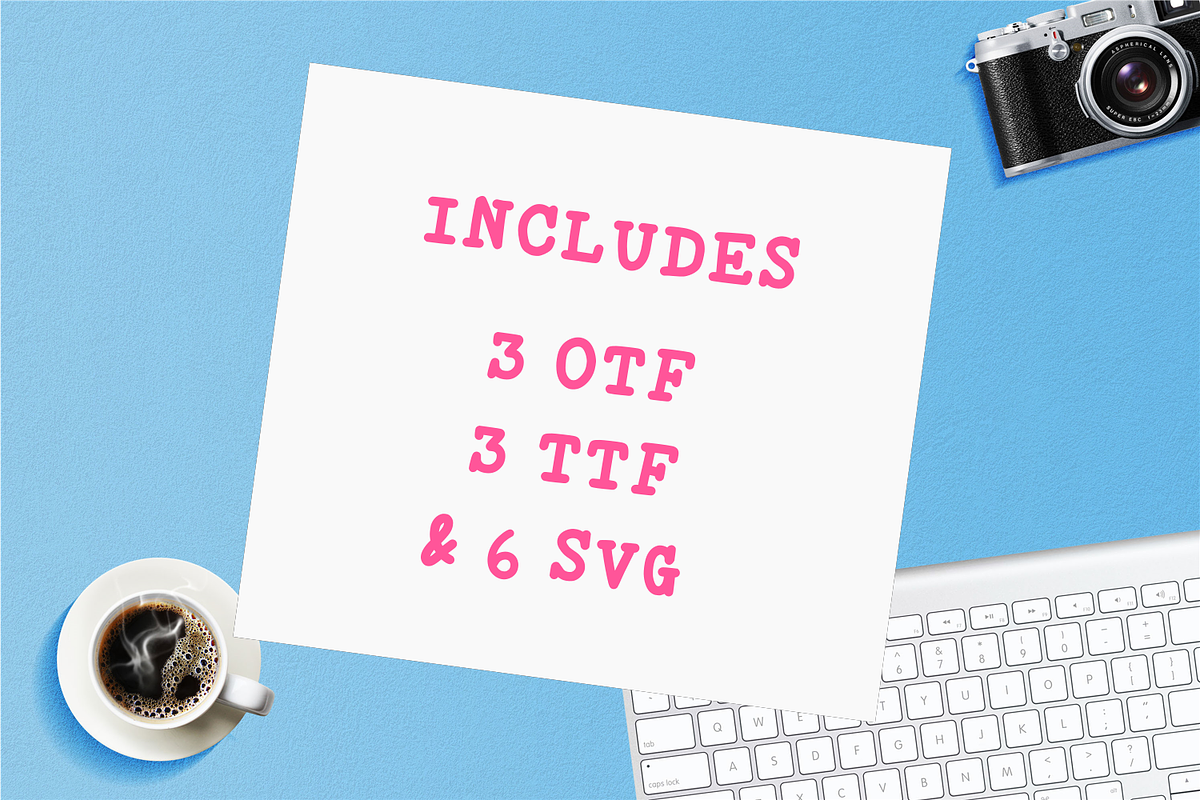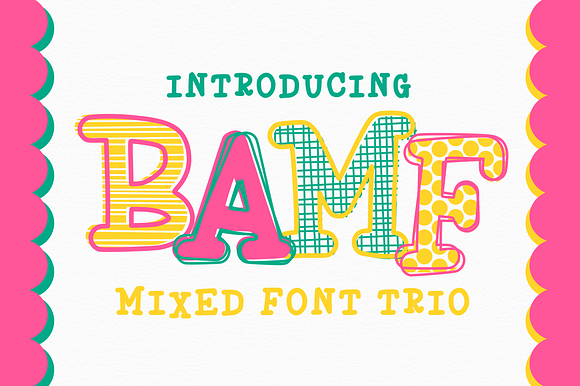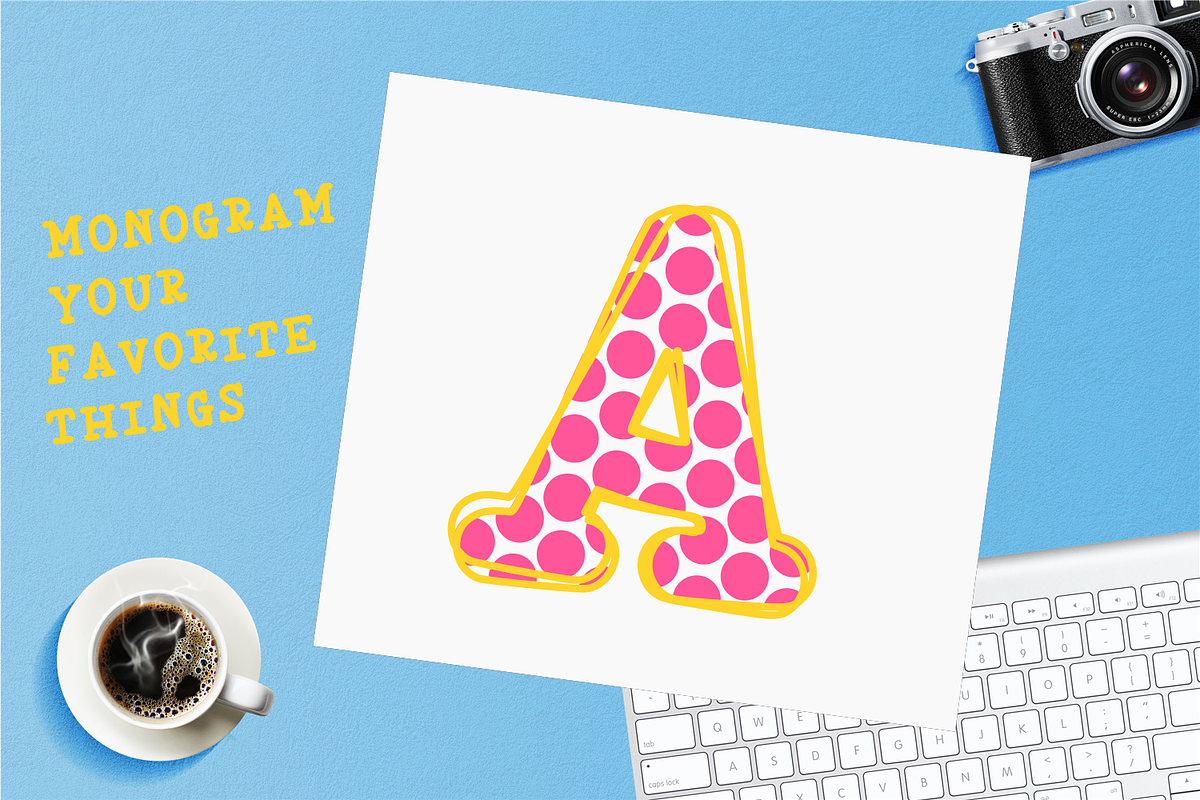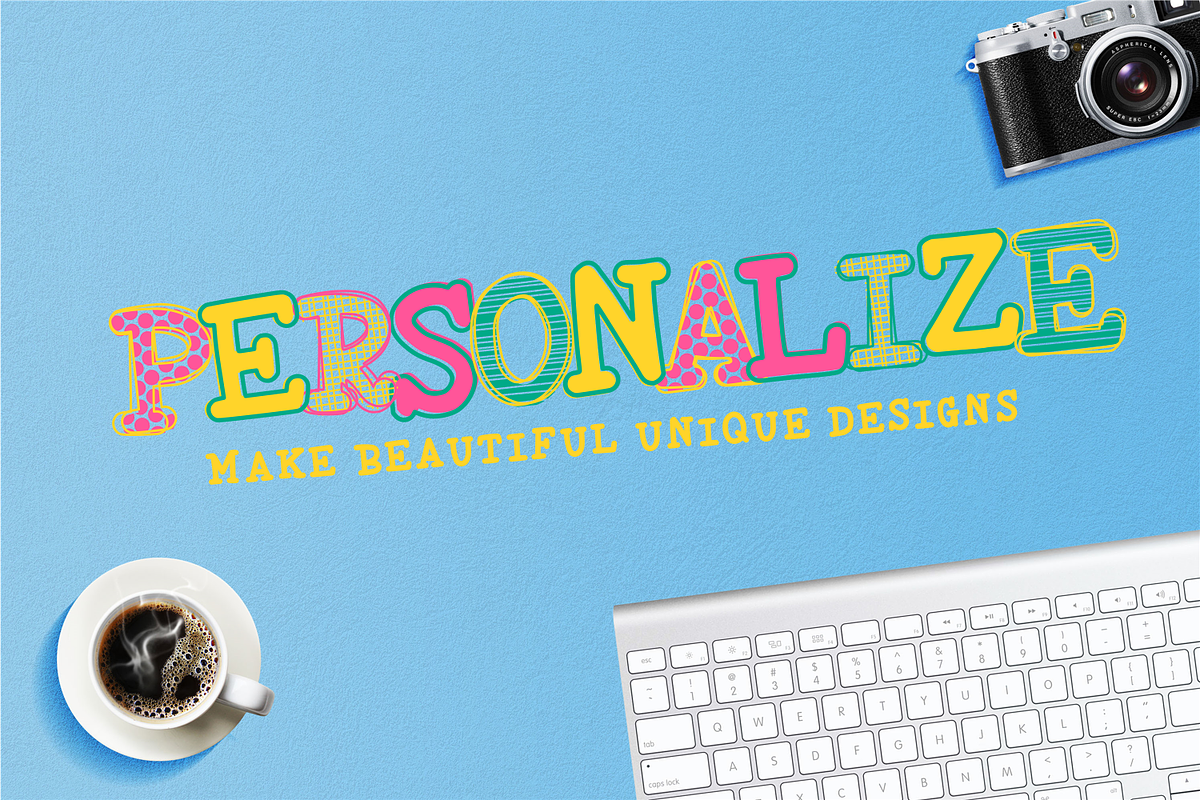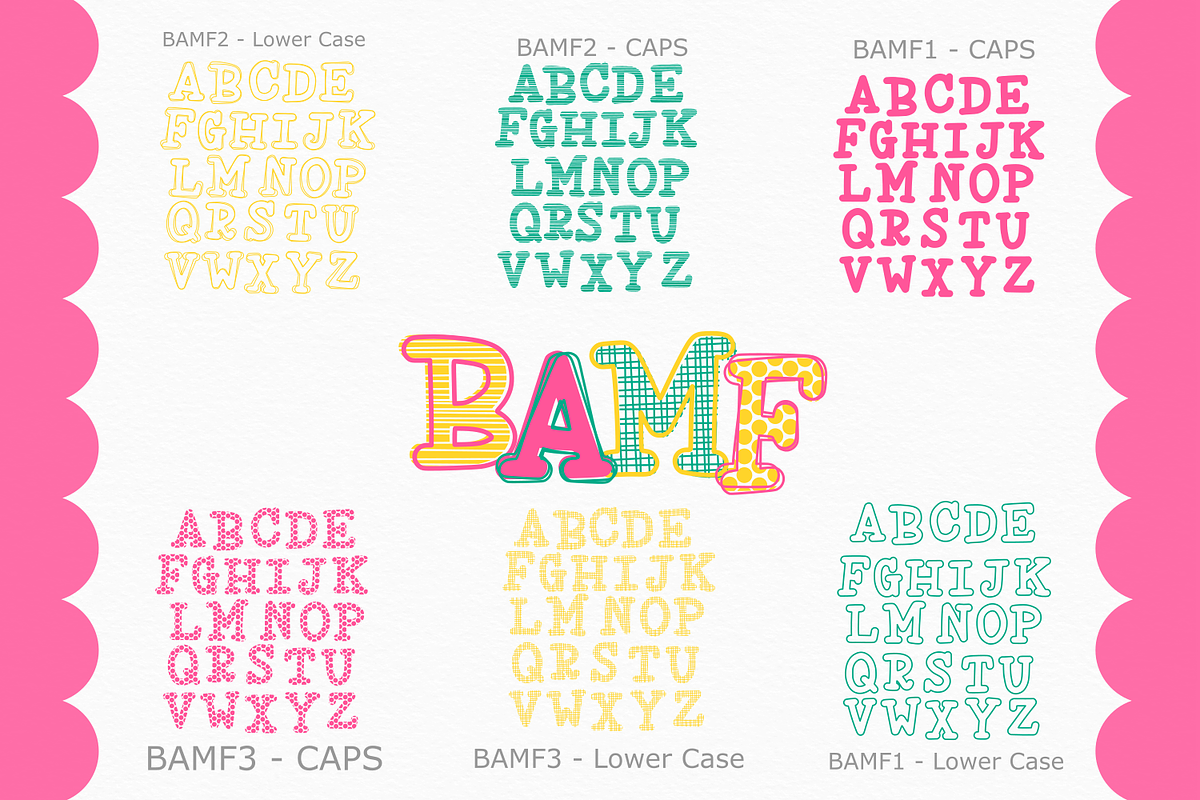
BAMF - Mixed Font Trio
This set includes 3 otf / ttf - and 6 SVG. Bamf is a little different- it's essentially 6 alphabet sets (3 patterned, 1 solid and 2 outlines) that can be layered to create really fun unique designs.